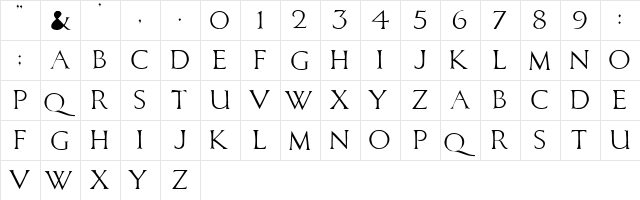
CaligulaDodgy Regular
Design Context for CaligulaDodgy Typeface
CaligulaDodgy is a composed and adaptable typeface that performs quietly and consistently across a wide range of design contexts.